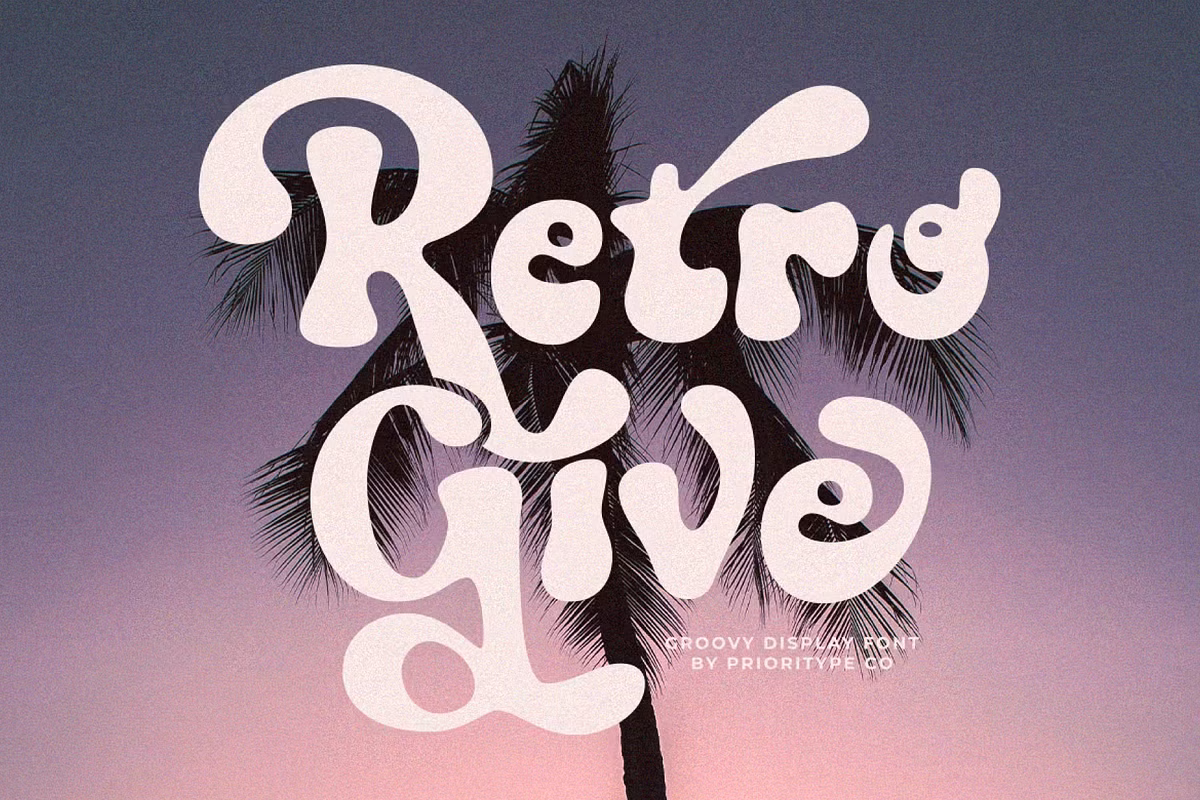
Retro Give Font Free Download is a groovy display typeface bursting with vintage charm and playful energy. Inspired by 70s pop culture, flower power, and psychedelic posters, Retro Give features chunky curves, bubbly letterforms, and a bold retro vibe—perfect for posters, branding, t-shirts, album covers, and fun social media graphics.
This font is all about personality. It includes uppercase and lowercase letters, numerals, punctuation, and may come with stylistic alternates or ligatures to keep your designs fresh and dynamic. Every letter feels like it’s dancing with positive energy.
Whether you're working on a nostalgic design or a bold modern throwback, Retro Give Font Free Download adds instant charm and grooviness to your work. Feel free to use it in personal or test projects, and don’t forget to purchase the correct license for any commercial use. Let your typography shine with this fun and funky retro display font!